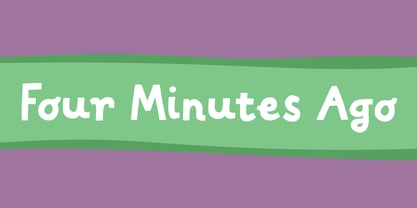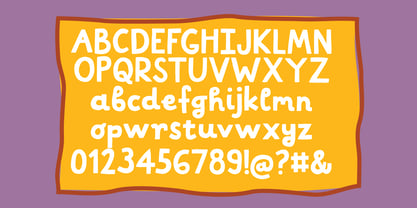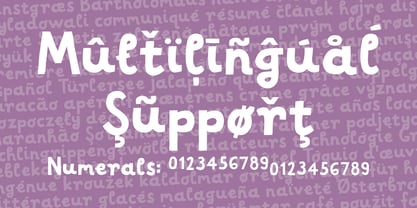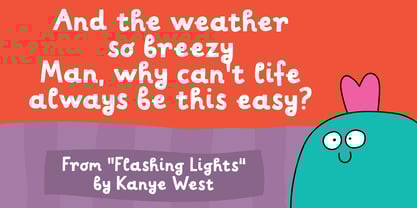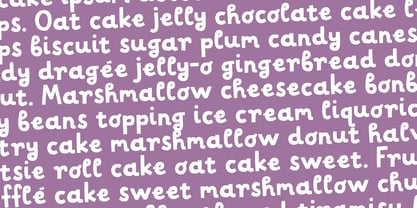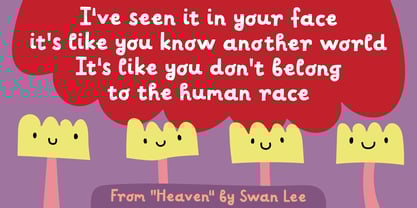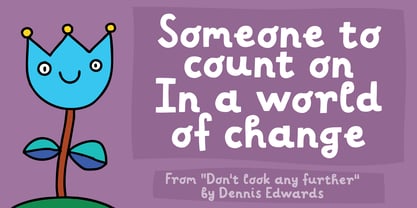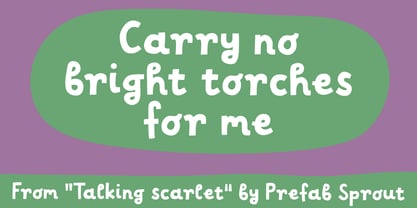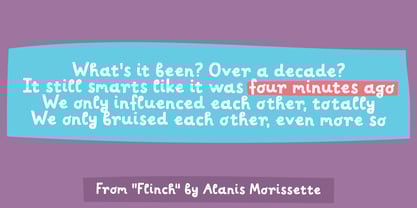
Four Minutes Ago
by Bogstav
The Four Minutes Ago Font Family was designed by Jakob Fischer and published by Bogstav. Four Minutes Ago contains 2 styles and family package options. More about this family
The sentence “Four minutes ago” came to me on several occasions the other day at work. I knew that the words reminded me of something, but I couldn’t quite figure it out. But then suddenly I remembered that Alanis Morissette song “Flinch” which I listened a lot to in around 2002. The song lyrics influenced me in some way, and I knew that I had to name a font after it. So, here it is … my lively handmade comic font. A little bit of schwung here and there, but not too much. Another fine font for your creative projects.